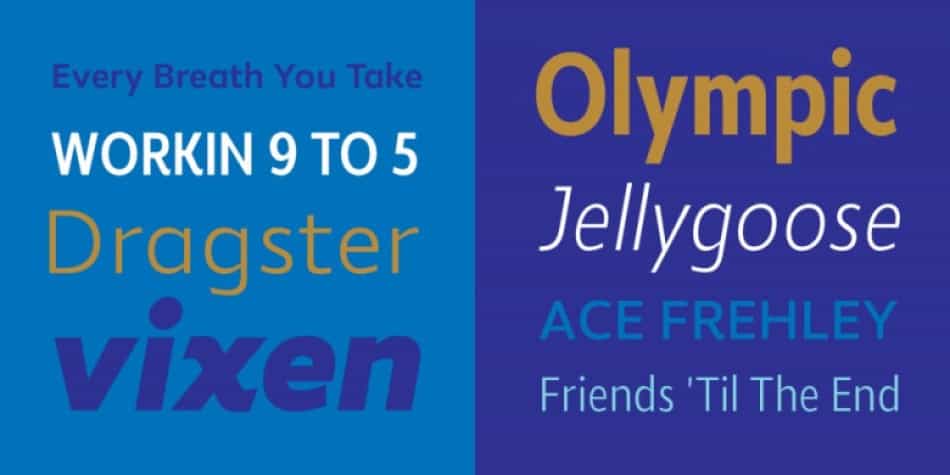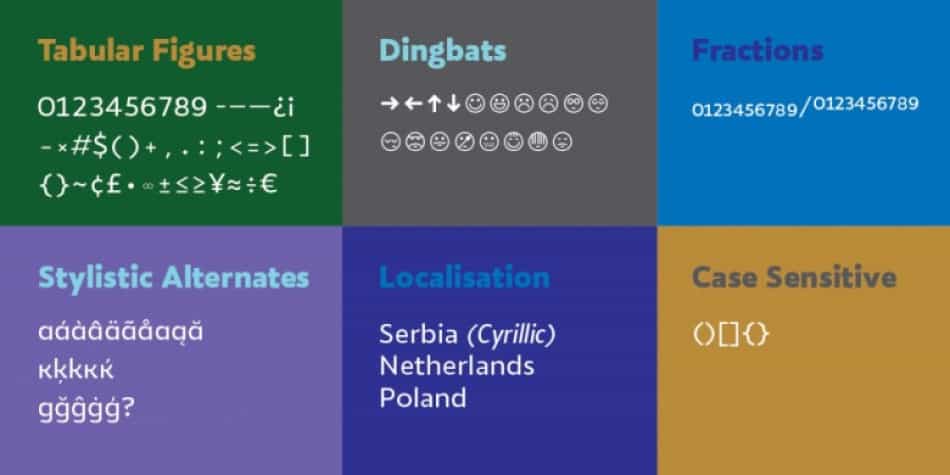
Roanne Font is a sans serif family from France named after its namesake city. The font family includes two width variants – Condensed and Normal – comprising 44 styles in total. Equipped with OpenType features (Tabular figures, fractions, Stylistic Alternates, Localizations to Serbia Poland the Netherlands as well as Case Sensitive brackets), Roanne provides more comprehensive Latin and Cyrillic character sets as well as small charming Dingbat sets.